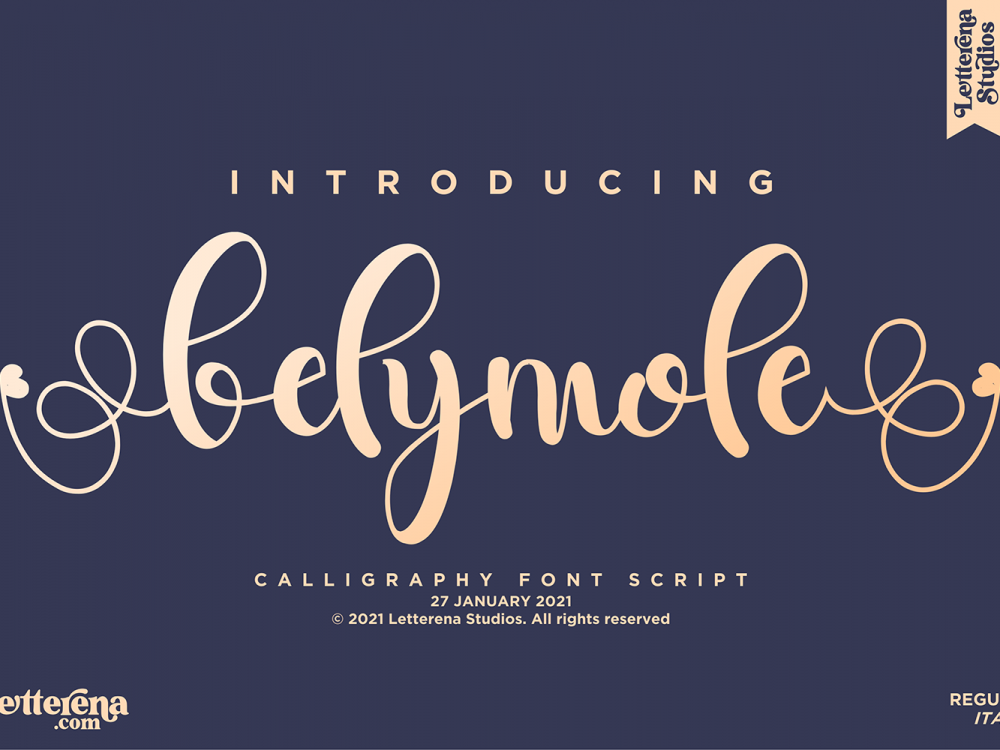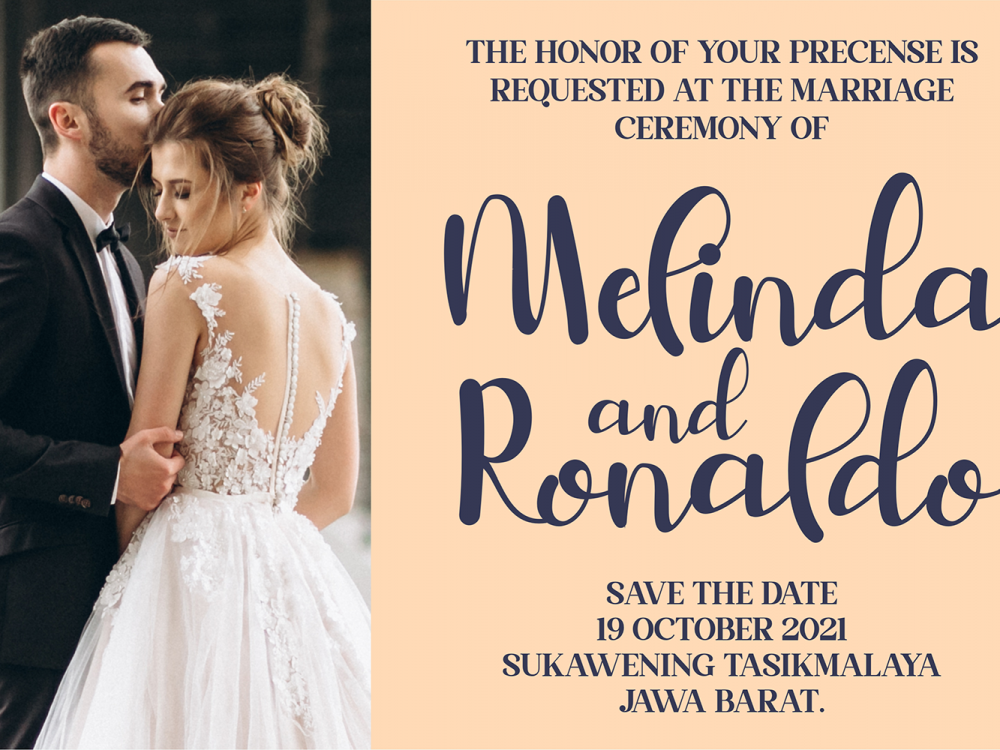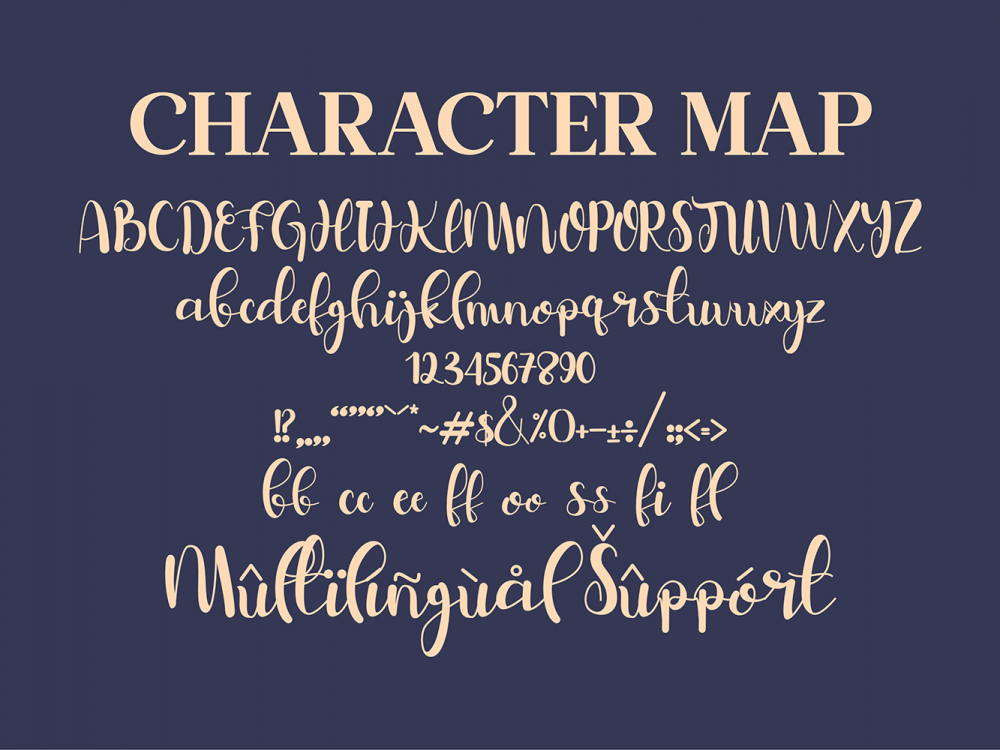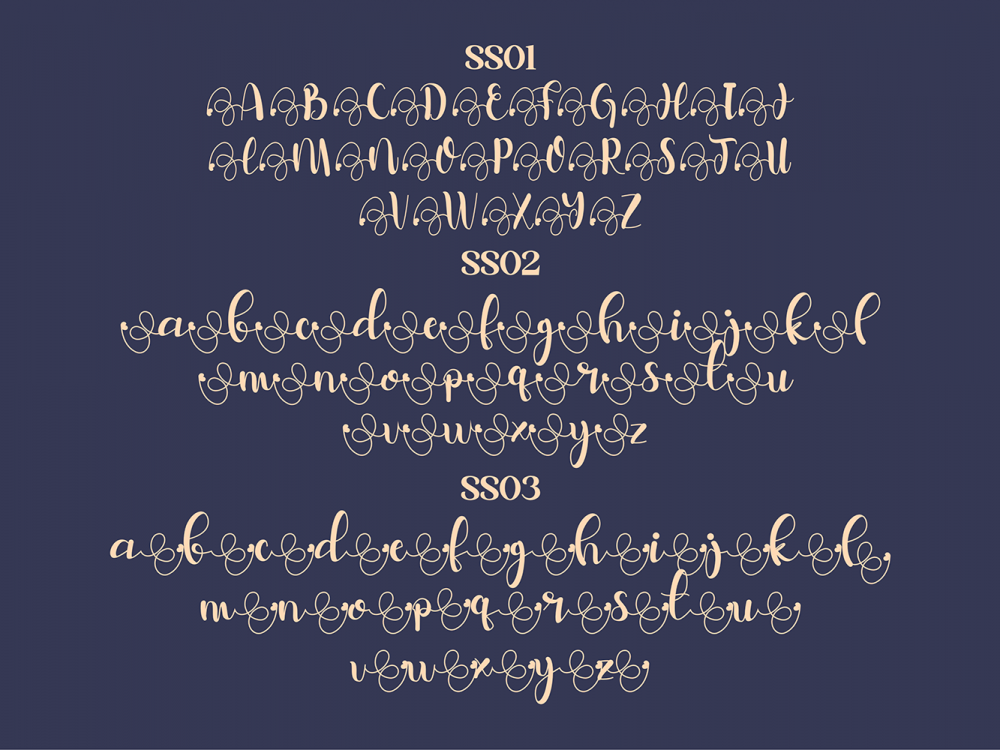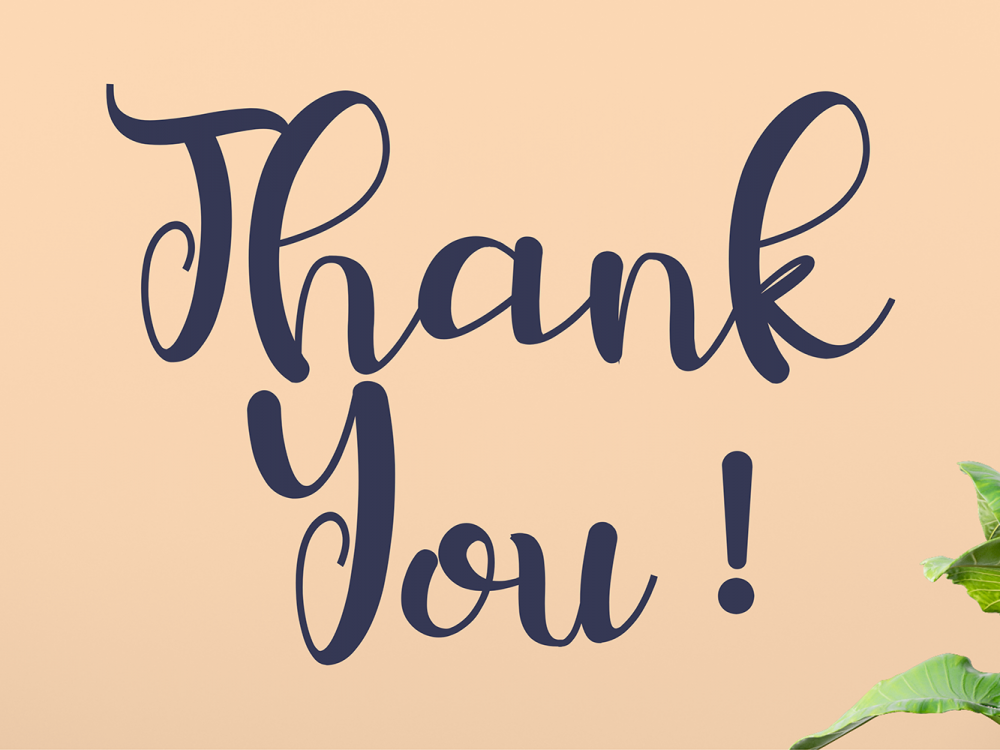
Belymole Free Font
Belymole Free Font is a modern script font that feels very elegant that features a modern calligraphic style among other fonts. This font is very well suited for various projects that require a scripted modern curly handwritten font. Use this font to create memorable romantic posters, wedding invitations, greeting cards, branding, flyers, t-shirt and pillow prints, and more. If you like it don’t forget to check out the full version.